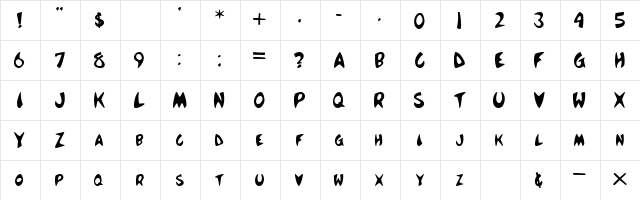
McBoing Boing Regular
Design Context for McBoing Boing Typeface
McBoing Boing is a composed and adaptable typeface that performs quietly and consistently across a wide range of design contexts.